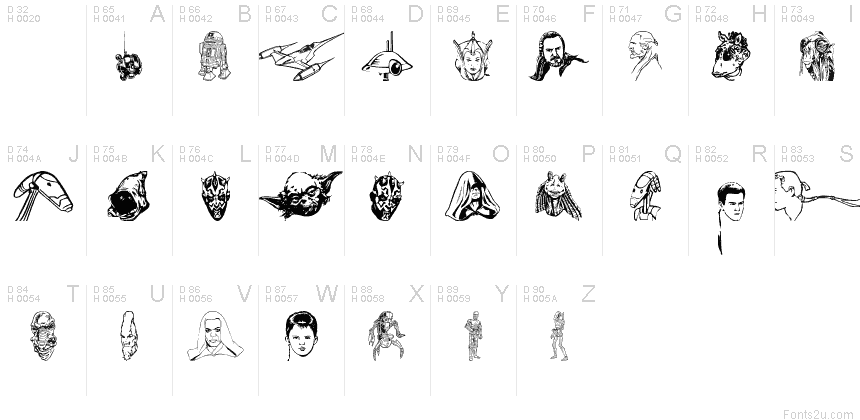
Phantom Dingbats is a free cartoon portrait dingbat font filled with inked science-fiction creatures. Wiry outlines, dark shadows, and dense hatching give the exaggerated faces the look of comic-book caricatures.
Publishing is a natural home for these illustrated symbols, especially fan magazines and humorous character guides. They can also turn game menus or event posters into a cast of odd alien personalities. On themed product packaging, a portrait can serve as a mascot or emblem for the brand.
Phantom Dingbats